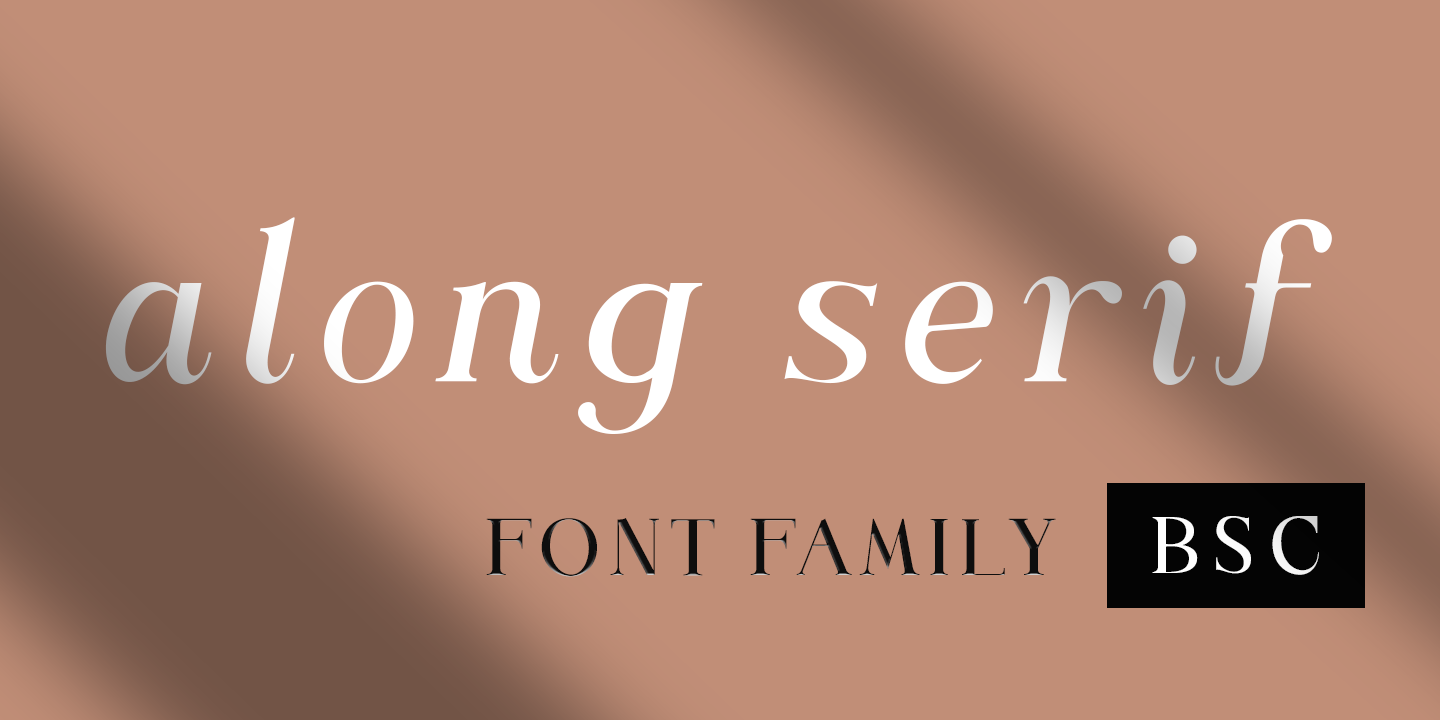
The Along Serif BSC Font is perfect for traditional publishing projects, classic book layouts, academic journal designs, formal corporate communications, prestigious institutional branding, scholarly article formatting, legal document presentations, and timeless editorial applications. This versatile typeface excels in publishing houses, educational institutions, law firms, traditional corporations, and any organization seeking to communicate scholarly authority, classical elegance, and enduring professionalism in their visual communications.
What makes Along Serif BSC Font so exciting is its distinguished, scholarly character that perfectly captures the essence of traditional typography and academic excellence while maintaining exceptional readability and contemporary functionality. The font features elegant serif letterforms with classical proportions, refined stroke variations, and distinctive details that create an immediate sense of intellectual authority and timeless sophistication. Its scholarly design philosophy makes it ideal for brands that want to communicate credibility, tradition, and the kind of enduring quality that builds trust and establishes lasting professional relationships.
The Along Serif BSC Font family includes comprehensive weight variations: Light, Regular, Medium, Semi Bold, Bold, and Black versions, each available in upright and italic styles. Additionally, it offers classical alternates, traditional ligatures, and academic flourishes that enhance the font's scholarly appeal. The family includes extended character sets with multilingual support, small capitals, old-style figures, and specialized glyphs for professional publishing and academic applications.
When you choose Along Serif BSC Font Free Download, you're investing in a typeface that embodies classical excellence and scholarly authority while ensuring exceptional functionality across all modern applications. This font seamlessly combines traditional serif aesthetics with contemporary design requirements, making it perfect for both digital platforms and premium print publications. The carefully crafted letterforms maintain perfect legibility in extended reading while the distinctive classical qualities create memorable brand experiences that resonate with audiences seeking intellectual depth and professional credibility.
Whether you're developing academic brand identities, creating scholarly marketing materials, designing traditional publications, or establishing a visual identity that celebrates classical learning and professional excellence, this font delivers outstanding authority and timeless appeal. The Along Serif BSC Font transforms your content into distinguished communications that inspire confidence and reinforce your brand's commitment to scholarly excellence and the enduring values of traditional typography.